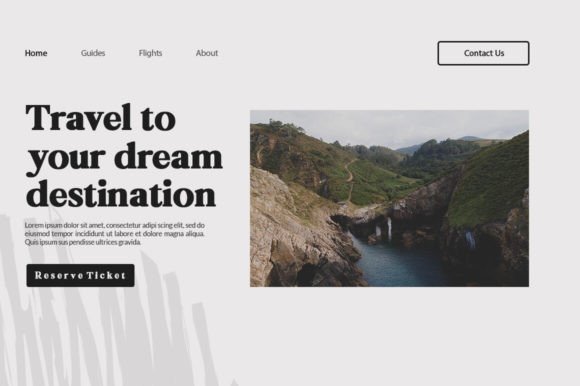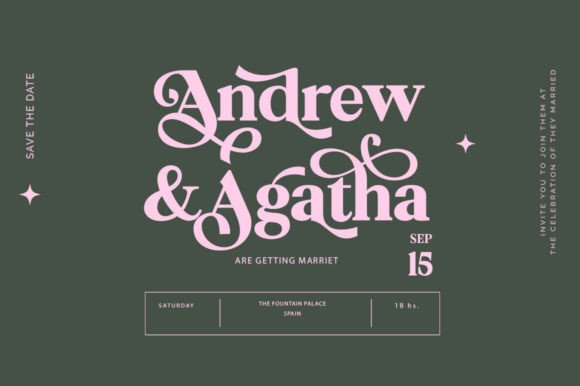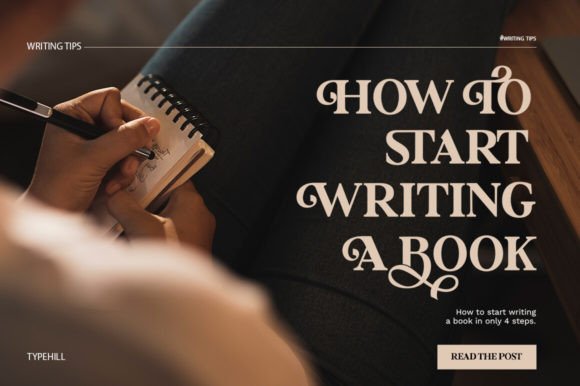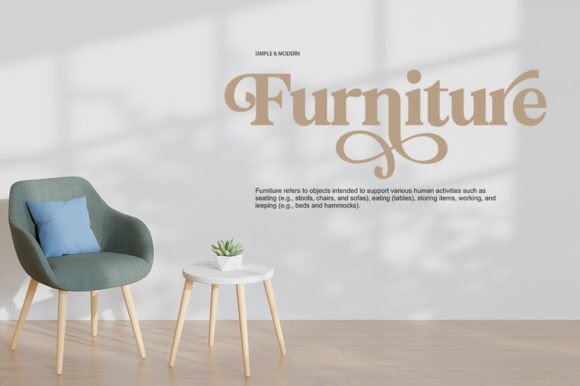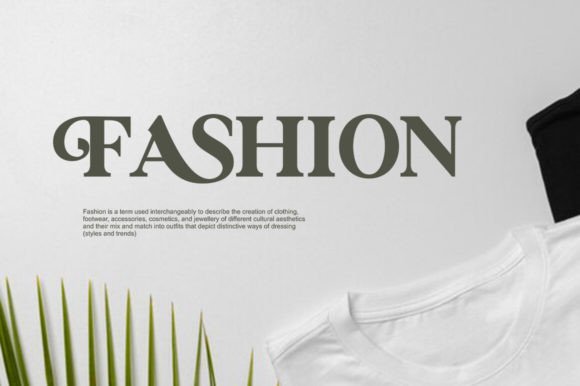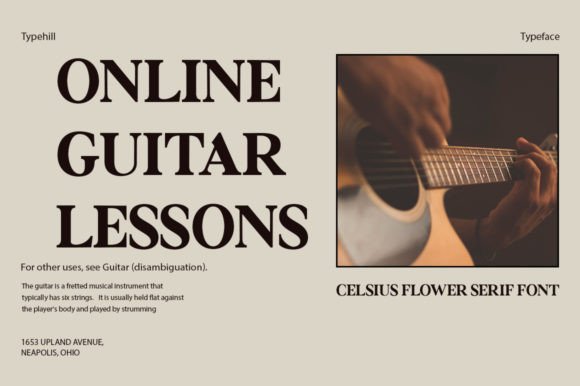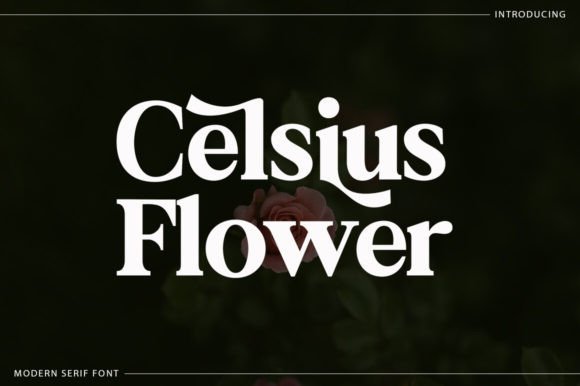
Celsius Flower Font: The Epitome of Elegance and Sophistication
In the realm of typography, few fonts have managed to capture the essence of elegance and sophistication as effectively as the Celsius Flower Font. This stunning typeface is a masterclass in design, boasting a smooth, clean, and unique aesthetic that is sure to leave a lasting impression. Whether you’re a designer, crafter, or simply someone with a passion for beautiful typography, the Celsius Flower Font is an absolute must-have.
Aesthetic Appeal
So, what sets the Celsius Flower Font apart from other typefaces? For starters, its smooth and clean lines exude a sense of modernity and refinement, making it perfect for a wide range of applications. From formal invitations and labels to fashion magazines and romantic novels, this font is guaranteed to add a touch of class and sophistication to any project. Its elegant and feminine design also makes it an excellent choice for brands and businesses looking to convey a sense of luxury and glamour.
Versatility and Readability
One of the standout features of the Celsius Flower Font is its incredible versatility. Not only is it available in a range of formats, including alternative, ligature, and multilingual support, but it’s also incredibly easy to read. This makes it perfect for use in a variety of contexts, from lengthy novels and magazines to packaging and labels. Whether you’re looking to create a beautiful wedding card or a stylish fashion magazine, this font is guaranteed to deliver.
Design Applications
So, where can you use the Celsius Flower Font? The answer is almost anywhere! Here are just a few ideas to get you started:
- Invitations: Whether you’re planning a wedding, birthday party, or corporate event, the Celsius Flower Font is the perfect choice for formal invitations.
- Labels and Packaging: Add a touch of elegance to your product labels and packaging with this beautiful font.
- Magazines and Novels: The Celsius Flower Font is perfect for use in fashion magazines, romantic novels, and other publications where a touch of sophistication is required.
- Logos and Branding: Use this font to create a stunning logo or brand identity that exudes luxury and glamour.
- Stationery and Letterpress: Add a touch of class to your stationery and letterpress with this beautiful font.
Why Choose Celsius Flower Font?
So, why should you choose the Celsius Flower Font for your next project? Here are just a few compelling reasons:
- Unique and Elegant Design: This font boasts a unique and elegant design that is sure to set your project apart from the competition.
- Highly Versatile: With alternative, ligature, and multilingual support, this font is incredibly versatile and can be used in a wide range of contexts.
- Easy to Read: The Celsius Flower Font is incredibly easy to read, making it perfect for use in lengthy publications.
- Feminine and Sensual: This font exudes a sense of femininity and sensuality, making it perfect for brands and businesses looking to convey a sense of luxury and glamour.
In conclusion, the Celsius Flower Font is an absolute must-have for designers, crafters, and anyone with a passion for beautiful typography. Its smooth, clean, and unique design makes it perfect for a wide range of applications, from formal invitations and labels to fashion magazines and romantic novels. With its incredible versatility, readability, and elegant aesthetic, this font is guaranteed to add a touch of class and sophistication to any project.